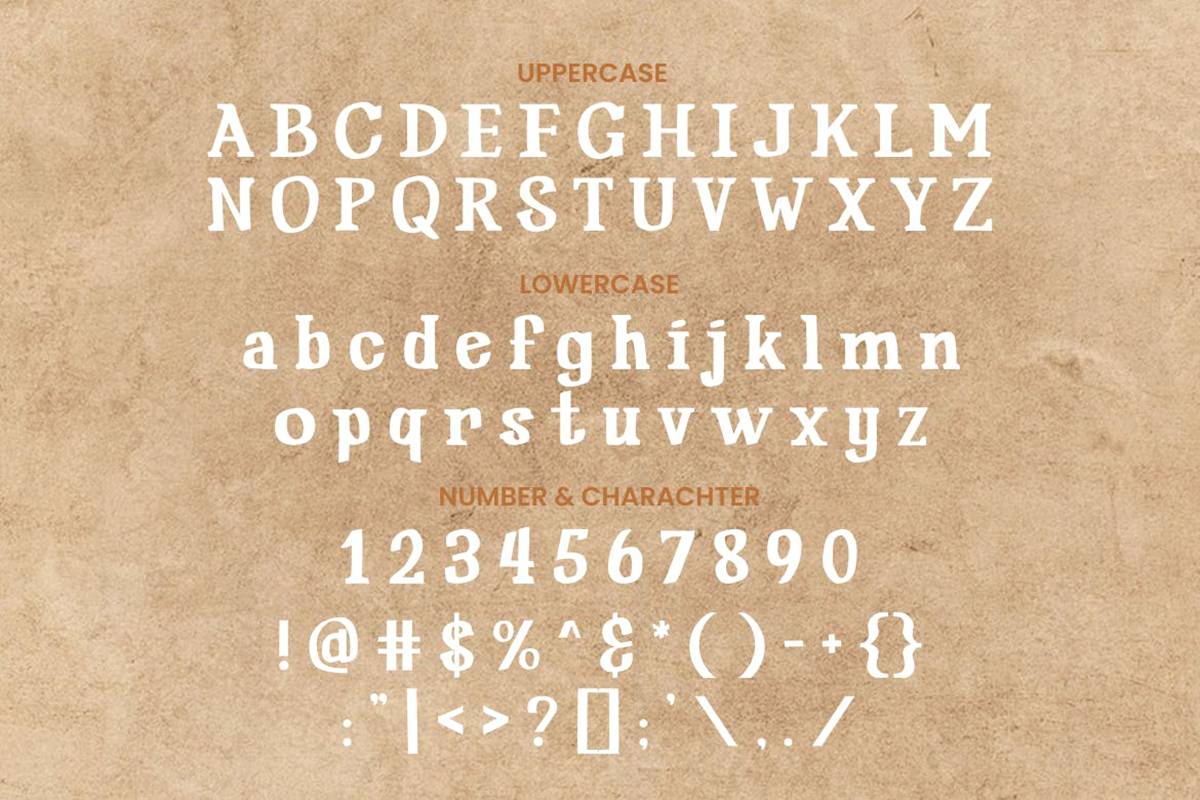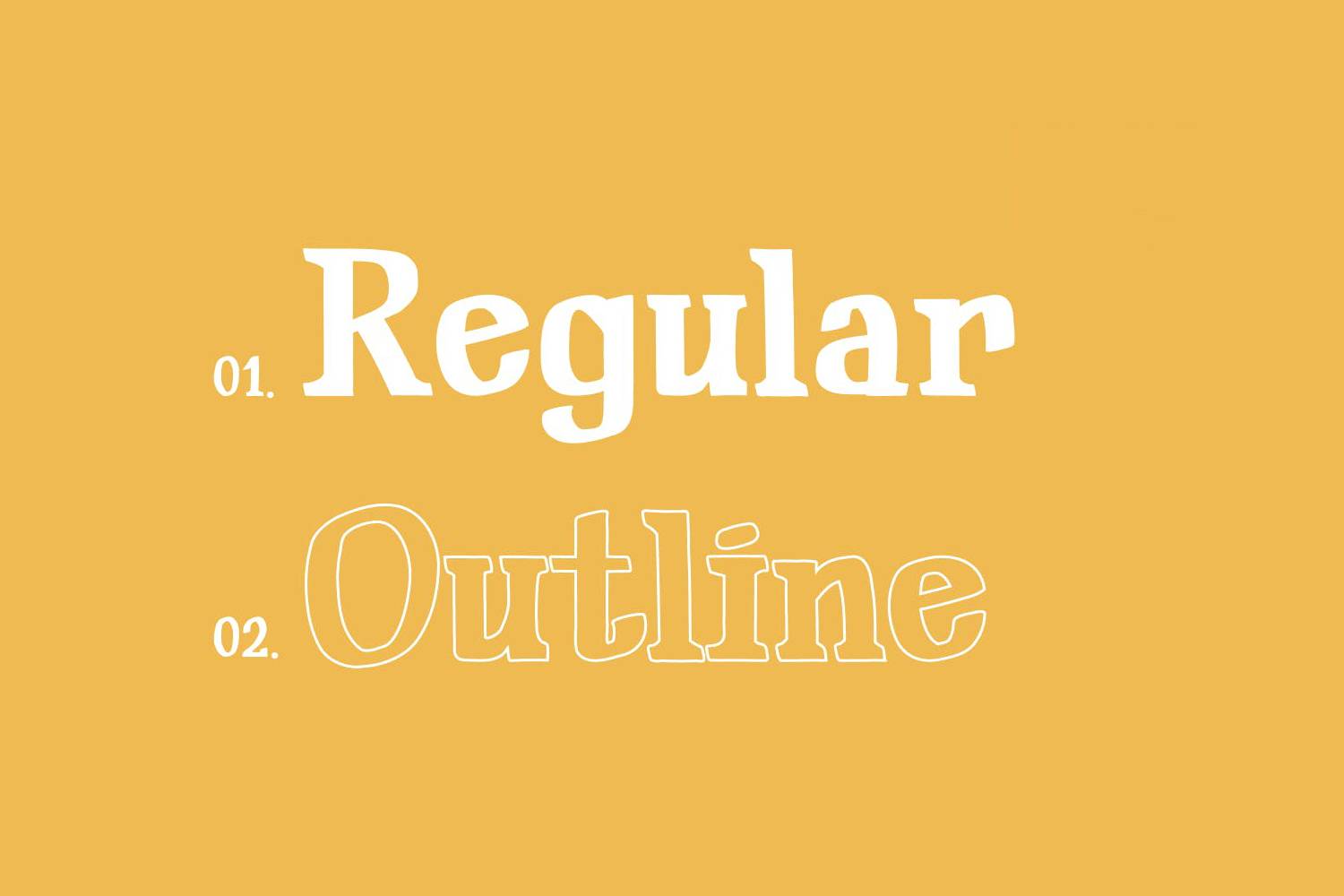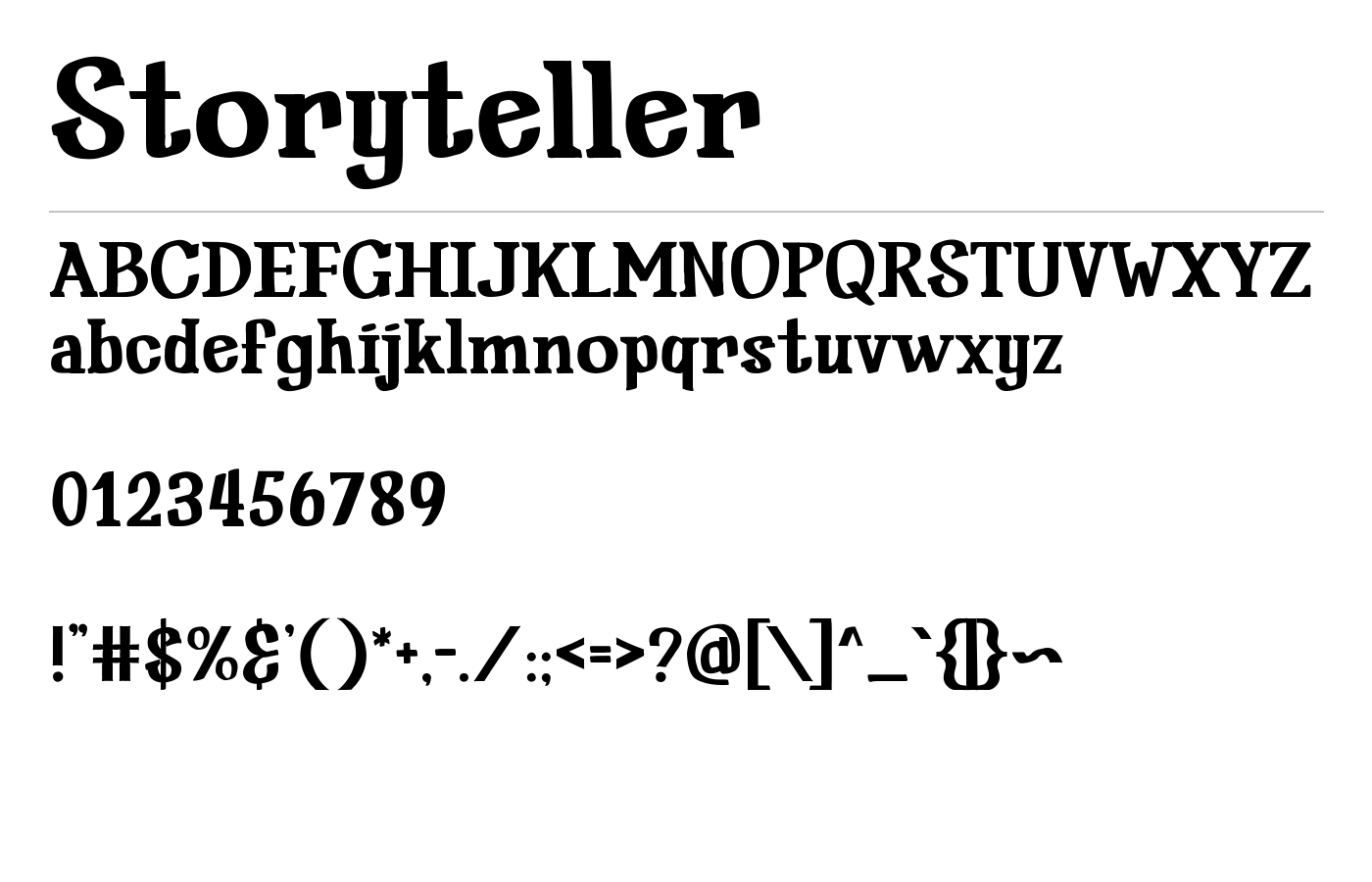
Storyteller is a charming serif font with a whimsical and slightly rustic feel, combining a moderate weight and medium contrast that gives it a friendly yet sturdy presence. Its irregular serifs, playful letterforms, and slightly uneven curves make it ideal for storytelling or branding that seeks warmth and personality, while still maintaining readability. This font works wonderfully for logos, editorial headlines, and creative packaging where a touch of uniqueness and character is desired.
Storyteller Font
About Storyteller Font